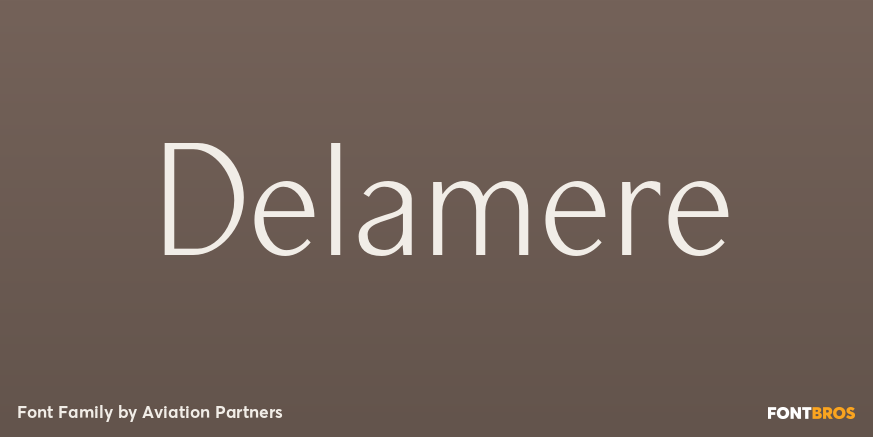
HomeFont BrosSans SerifDelamere Sans Serif Delamere FacebookXPinterestWhatsApp 1 of 1 About Delamere uses conventional sans-serif letterforms but delivered with a strong calligraphic feel.  DOWNLOAD NOW People also explored Birder Font Magnum Smith Font Good Boy Monogram Font Winstone Font Sprinkle Nose Font Sengoa Font Clafoutis Font Camellia Font Natural Fence Font 392 0 TagsDelamere Font Previous articleSquare MealNext articleSuperfly Extended LEAVE A REPLY Cancel reply Comment: Please enter your comment! Name:* Please enter your name here Email:* You have entered an incorrect email address! Please enter your email address here Website: Save my name, email, and website in this browser for the next time I comment. Personal Use Free Mahisya Personal Use Free Read more about this font Ashay Personal Use Free Read more about this font Elliane Personal Use Free Read more about this font Darla Personal Use Free Read more about this font BLOG Where to Buy American Fonts Online in 2024 Where to Buy American Fonts Online: The Ultimate Guide for 2024 Looking for the perfect American font to elevate your design projects? You're in the... Best Fonts for T-Shirt Design – Top 2025 Picks Fonts That Capture the Spirit of New York City Free vs Paid Fonts: Why Investing in Premium Fonts Is Worth It